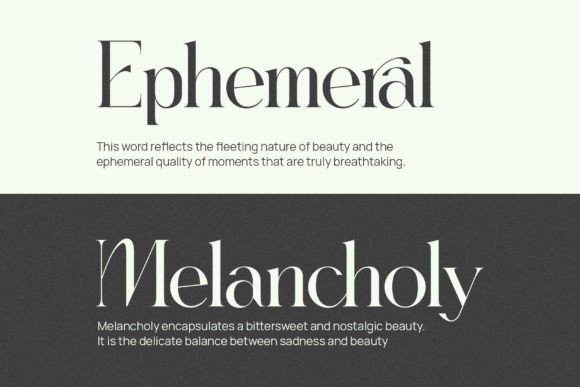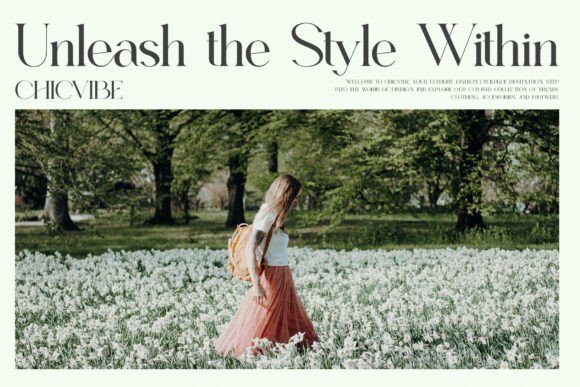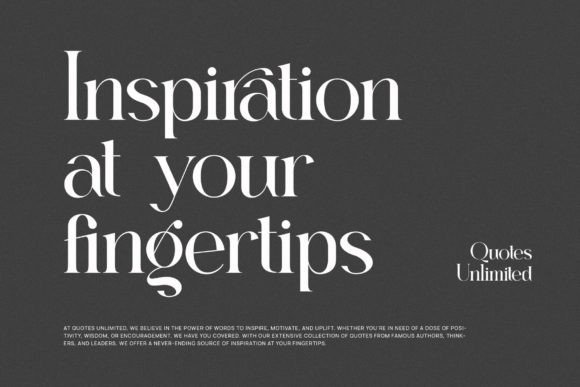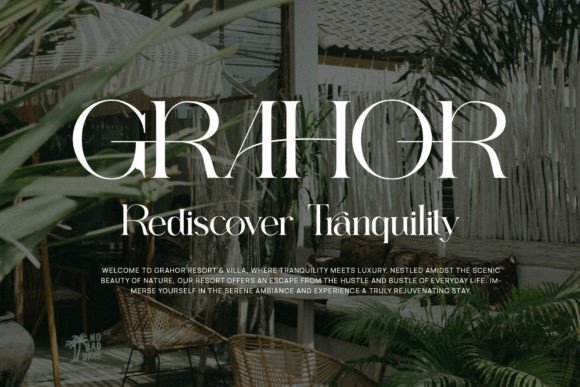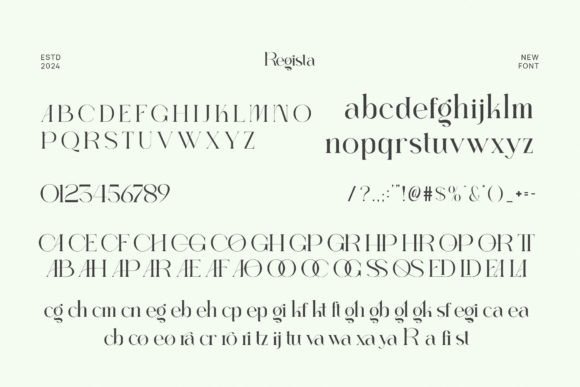
Introduction to Regista Font
As a designer, there’s nothing quite like the thrill of bringing a creative project to life. The blank canvas, the endless possibilities, and the rush of excitement as your ideas start to take shape. For many of us, this moment is what it’s all about – the chance to express ourselves, push boundaries, and create something truly unique.
But, let’s face it – sometimes that blank canvas can be a bit intimidating. That’s where the right design resource can make all the difference. Enter the Regista Font, a stylish and fashionable serif typeface that embodies contemporary elegance. With clean lines, graceful curves, and a touch of sophistication, it’s the perfect addition to any high-quality design.
Key Features of Regista Font
- High-quality, elegant design suitable for creative projects and modern designs.
- Perfect for use in a variety of creative projects, including logos, typography, and graphic design.
Honest Review: Regista Font
As a designer, I’m always on the lookout for high-quality design resources to elevate my creative projects. The Regista Font is one such gem that caught my attention. Let’s dive into what makes it shine.
- ✨ Unique Character Set: The Regista Font boasts a unique character set that sets it apart from other fonts. The subtle nuances in letterforms make it perfect for creative projects that require a touch of elegance.
- ✨ High-Quality Vectors: The font is available in high-quality vector format, making it easy to scale and manipulate without compromising on quality.
While the Regista Font excels in many areas, there are a few limitations to consider.
- ⚠️ Transparent Background Issues: Some users may encounter issues with transparent backgrounds, which can be frustrating to work with.
- ⚠️ Limited Customization Options: The font’s design is quite distinct, which can make it challenging to customize it to suit specific design needs.
Overall, the Regista Font is a solid choice for designers looking for a high-quality, unique font for their creative projects. While it may have some limitations, its strengths far outweigh its weaknesses, making it a valuable addition to any design resource library.
Tips for Getting the Most Out of Regista Font
To get the most out of the Regista Font, experiment with different font sizes, colors, and styles. Use it in combination with other design elements to create visually appealing designs.
The Regista Font is suitable for a variety of creative projects, including logos, business cards, brochures, and social media graphics. Its high-quality design and transparent background make it an ideal choice for designers and non-designers alike.